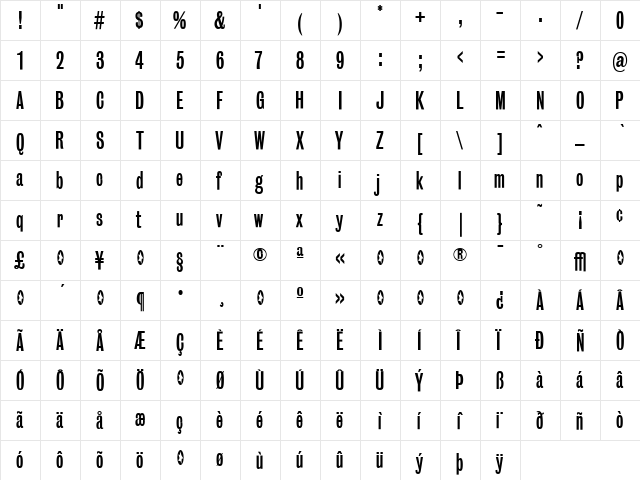
BureauGrotesque-OneThree Regular Font Preview
BureauGrotesque-OneThree Regular
BureauGrotesque-OneThree Regular Font Details
Design Context for BureauGrotesque-OneThree Typeface
BureauGrotesque-OneThree takes a measured approach to typography — its balanced proportions and neutral character make it a reliable workhorse for both digital and print work.